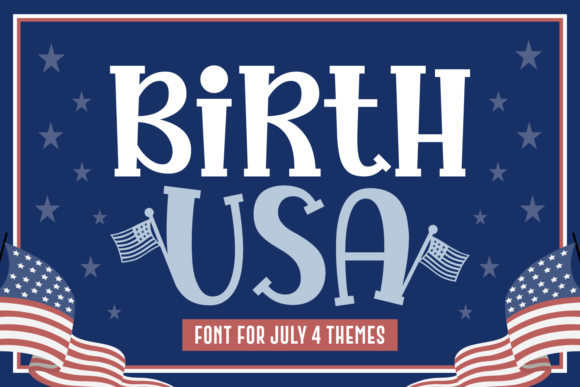
Unleash the Uniqueness with Birth USA Font: A Revolutionary Serif for Bold Statements
In a world where conformity often prevails, Birth USA Font emerges as a breath of fresh air, a font that embodies boldness and individuality. Designed to turn heads and capture attention, this serif font is not for the faint-hearted. It's a font that demands attention, a font that commands respect.
Crafted with meticulous precision by the experts at Creative Fabrica Fonts, Birth USA Font is a masterpiece of digital artistry. Its sharp edges and strong lines exude a sense of confidence and authority, making it the perfect choice for creating designs that leave a lasting impression.
Step into a world of endless possibilities with Birth USA Font. Let your creativity soar as you explore its diverse applications, from patriotic designs to eye-catching advertisements. Create Independence Day flags that radiate pride and patriotism, design outfits that exude a unique and unconventional style, or craft banners and cards that convey your message with undeniable impact.
With Birth USA Font, social media posts and advertisements transform into captivating works of art, drawing the attention of your audience and leaving them craving more. Unleash your inner artist and let your imagination run wild as you create designs that resonate with your audience and make a statement.